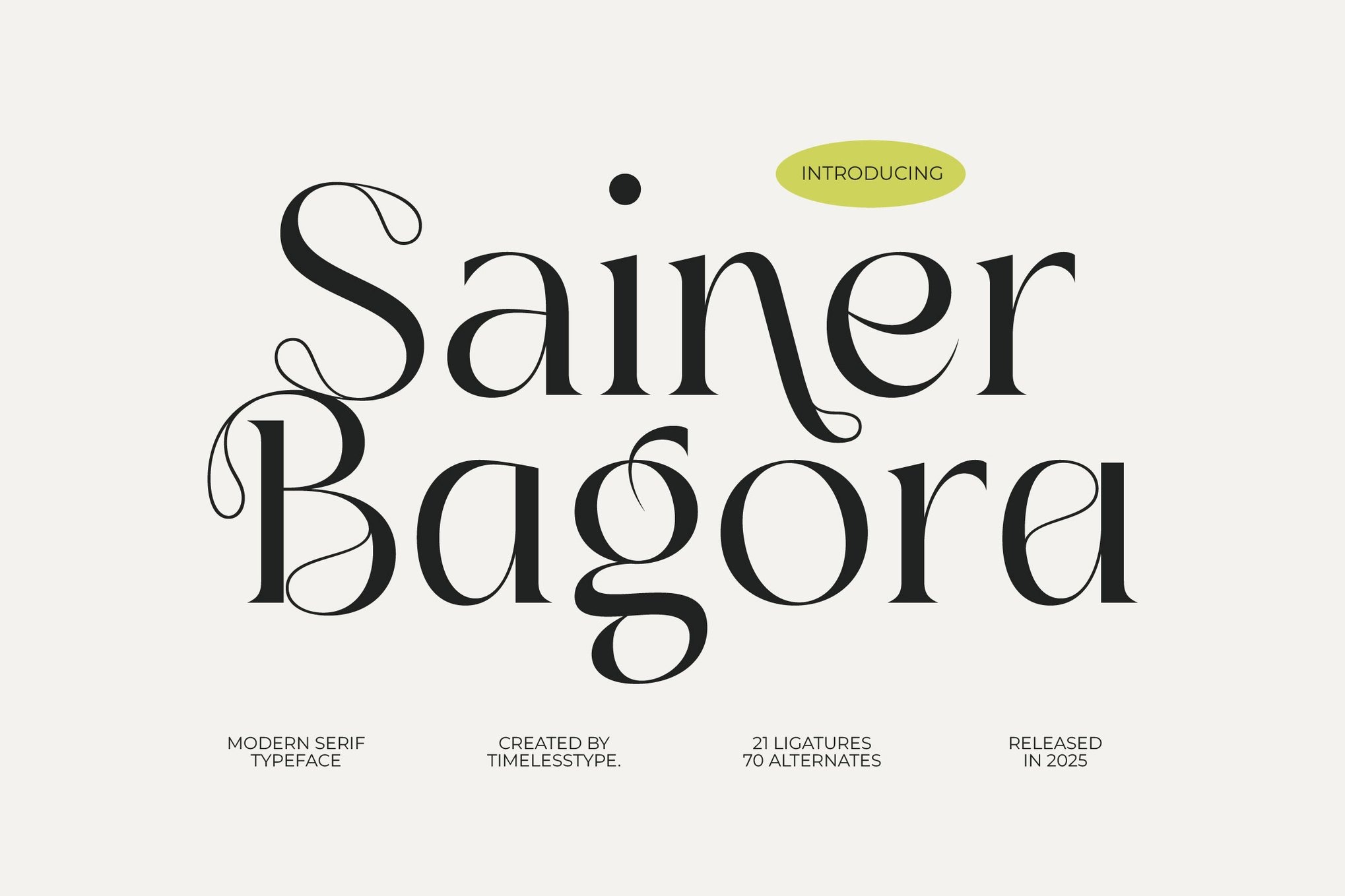
Sainer Bagora Font
Sainer Bagora Font is a versatile font designed to adapt beautifully across different design styles, offering dependable readability and balance. Sainer Bagora is a modern and refined serif typeface that combines a sharp, contemporary structure with graceful, ornamental curves, offering a high-end editorial feel with a distinctive artistic flair. Comprising 21 flowing ligatures and 70 carefully crafted stylistic variants, this typeface offers versatile expression for brands, luxury packaging, magazines, visual identities, and any design that demands sophistication and personality. Sainer Bagora elevates typography with its sculpted letterforms, fluid contrasts, and effortless elegance, making it an exceptional choice for designers seeking a modern serif that stands out without being overly flashy.